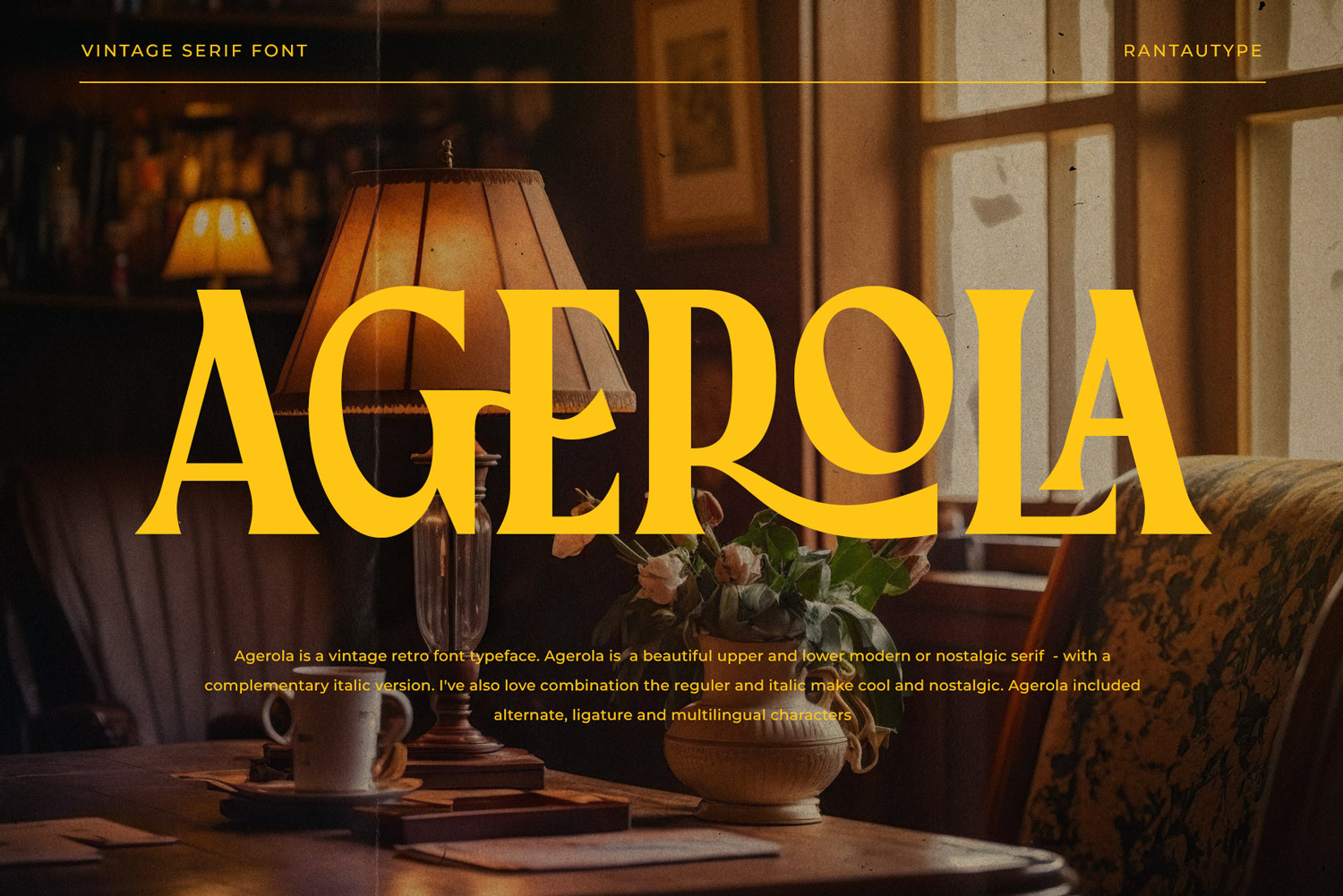
Agerola Vintage Font
Agerola - vintage retro font typeface. Agerola is a beautiful upper and lower modern or nostalgic serif - with a complementary italic version. I've also love combination the reguler and italic make cool and nostalgic. Agerola included alternate, ligature and multilingual characters
Agerola - perfectly suitable for creating elegant, chic, lifestyle design such as logos, title, and magazine, and more. Now you have more choice when using Agerola for typography. Agerola here to make your work to high level!!!
- Standar character A-Z and a-z
- Alternate and ligature
- International Multilinggual Support
Langguange support:
Afrikaans, Albanian, Asu, Basque, Bemba, Bena, Breton, Catalan, Chiga, Cornish, Danish, Dutch, English, Estonian, Faroese, Filipino, Finnish, French, Friulian, Galician, German, Gusii, Icelandic, Indonesian, Irish, Italian, Kabuverdianu, Kalenjin, Kinyarwanda, Luo, Luxembourgish, Luyia, Machame, Makhuwa-, Meetto, Makonde, Malagasy, Manx, Morisyen, Northv Ndebele, Norwegian, Bokmål, Norwegian, , Nynorsk, Nyankole, Oromo, Portuguese, Quechua, Romansh, Rombo, Rundi, Rwa, Samburu, Sango, Sangu, Scottish, Gaelic, Sena, Shambala, Shona, Soga, Somali, Spanish, Swahili, Swedish, Swiss, German, Taita, Teso, Uzbek (Latin), Volapük, Vunjo, Zulu